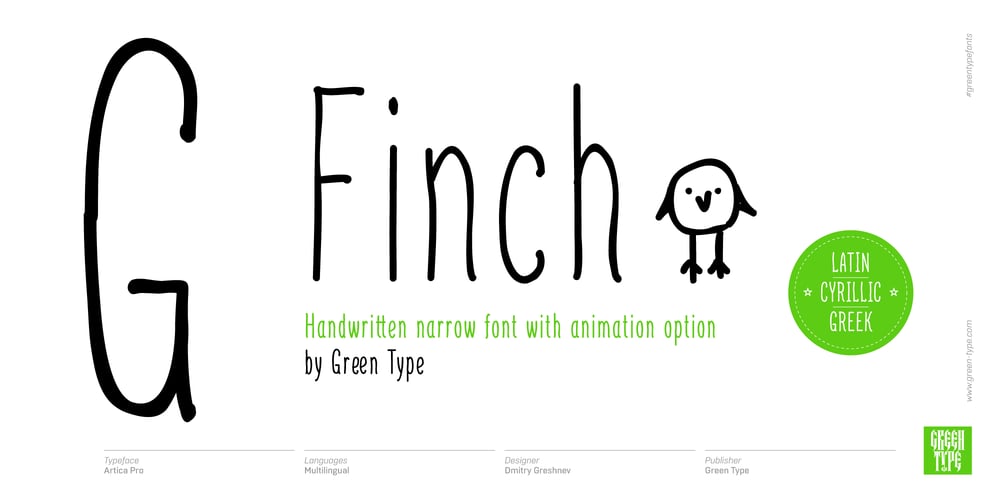
Finch Font Family was designed by Dmitry Greshnev and published by Green Type. Finch contains 14 styles and family package options. Finch is a narrow handwritten multilingual font. Supports Latin, Cyrillic, Greek, Eastern European, Baltic and Turkish scripts.Finch has swash initial and final forms, as well as standard ligatures of opentype features. A special option is the ability to create animated titles using one of five styles for each next frame, which differ slightly from each other, resulting in a live cartoon title.